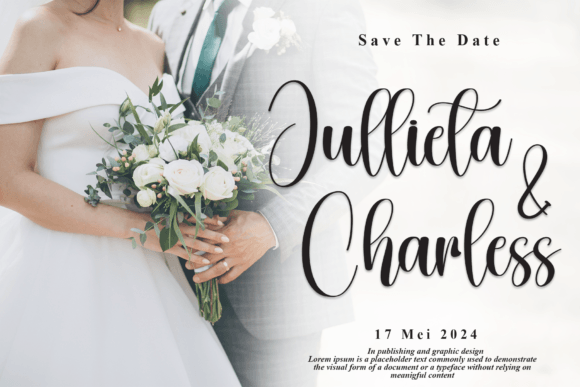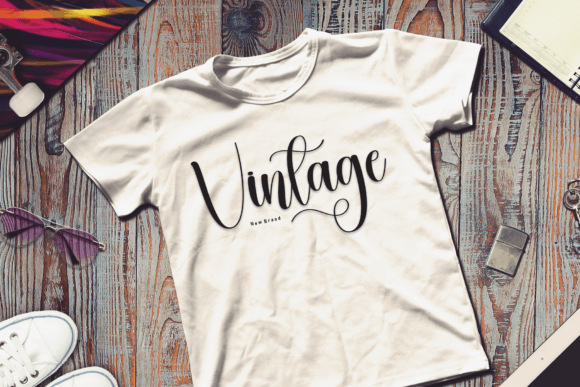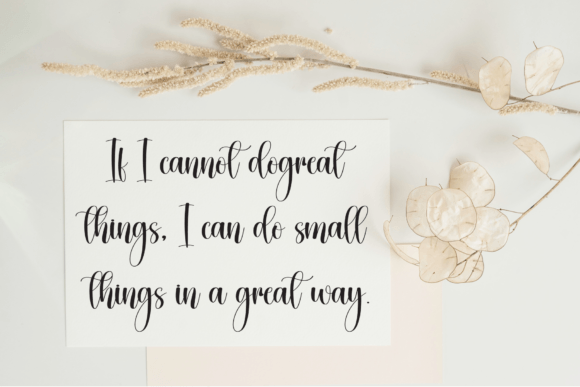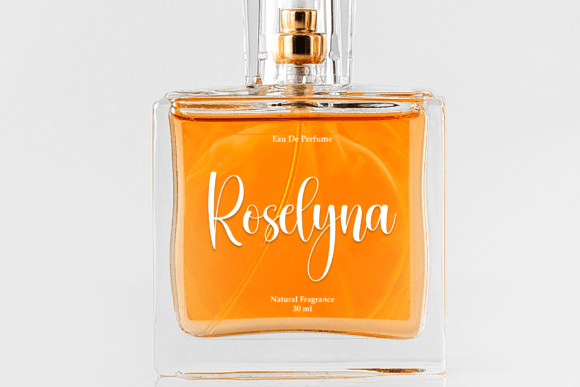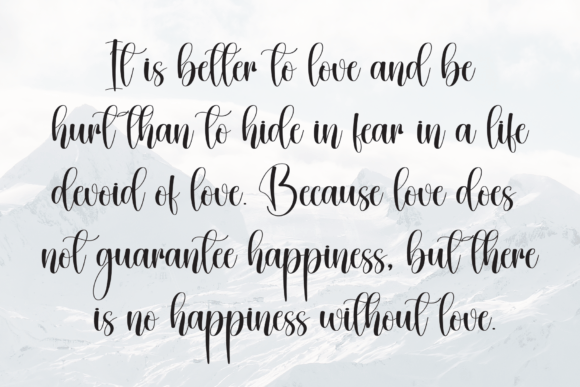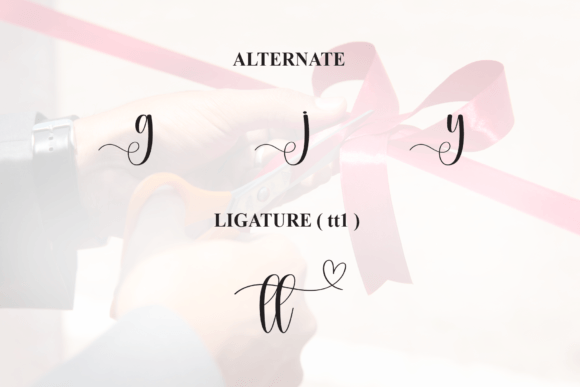
Introducing Cutting Font: The Sweet and Friendly Handwritten Font
Are you a designer or crafter looking for a font that can add a personal touch to your projects? Look no further than Cutting Font, a sweet and friendly handwritten font that’s perfect for a wide range of designs. With its natural and unique style, Cutting Font is incredibly versatile and can be used in various creative projects, from DIY crafts to professional branding.
What Makes Cutting Font So Special?
Cutting Font’s unique style is what sets it apart from other fonts. Its natural, handwritten look makes it perfect for designs that require a personal touch. The font’s friendly and approachable vibe makes it ideal for projects that aim to connect with the audience on a personal level. Whether you’re creating a logo, a label, or a social media graphic, Cutting Font is sure to make your design stand out.
The best part about Cutting Font is that it’s incredibly versatile. The only limit is your imagination! You can use it to create:
- DIY Crafts: Add a personal touch to your DIY projects, such as handmade cards, gift tags, and scrapbook pages.
- Branding Materials: Use Cutting Font to create unique logos, business cards, and letterheads that reflect your brand’s personality.
- Social Media Graphics: Create engaging social media graphics, such as quotes, posters, and flyers, that showcase your brand’s voice.
- Packaging Labels: Add a personal touch to your product packaging with Cutting Font labels that make your product stand out.
Why Choose Cutting Font?
There are many fonts available, but Cutting Font stands out for several reasons:
- Unique Style: Cutting Font’s natural and handwritten style makes it unique and eye-catching.
- Easy to Read: The font is clear and easy to read, making it perfect for designs that require a personal touch.
- Versatile: Cutting Font can be used in various creative projects, from DIY crafts to professional branding.
Tips for Using Cutting Font
Here are some tips for using Cutting Font in your designs:
- Pair it with Other Fonts: Experiment with pairing Cutting Font with other fonts to create a unique look.
- Use it in Combination with Images: Combine Cutting Font with images to create visually appealing designs.
- Experiment with Colors: Try out different colors to find the perfect match for your design.
Cutting Font is a sweet and friendly handwritten font that’s perfect for designers and crafters looking to add a personal touch to their projects. With its unique style and versatility, Cutting Font is sure to become a favorite in your design arsenal. So why wait? Get creative with Cutting Font and take your designs to the next level!